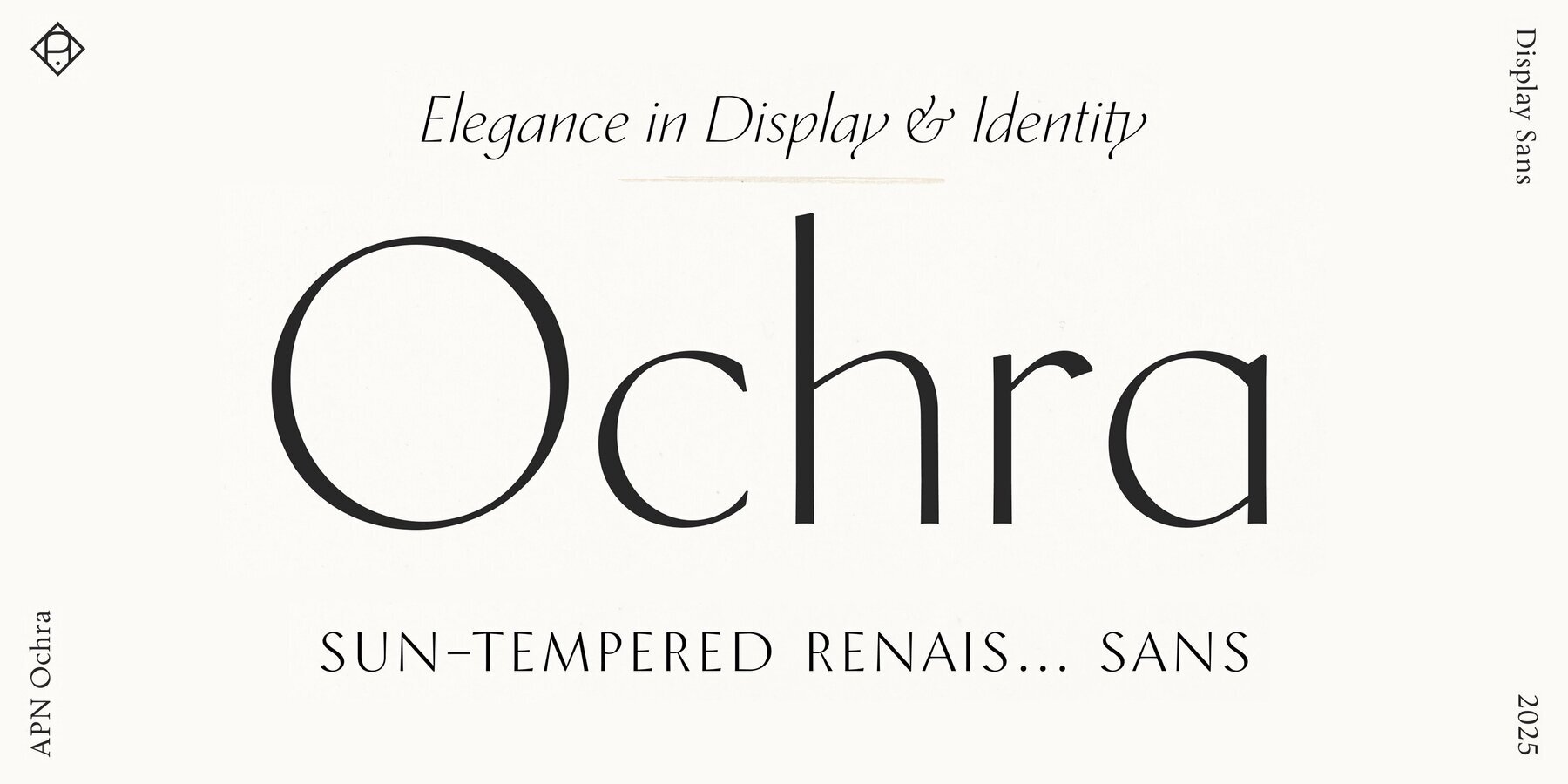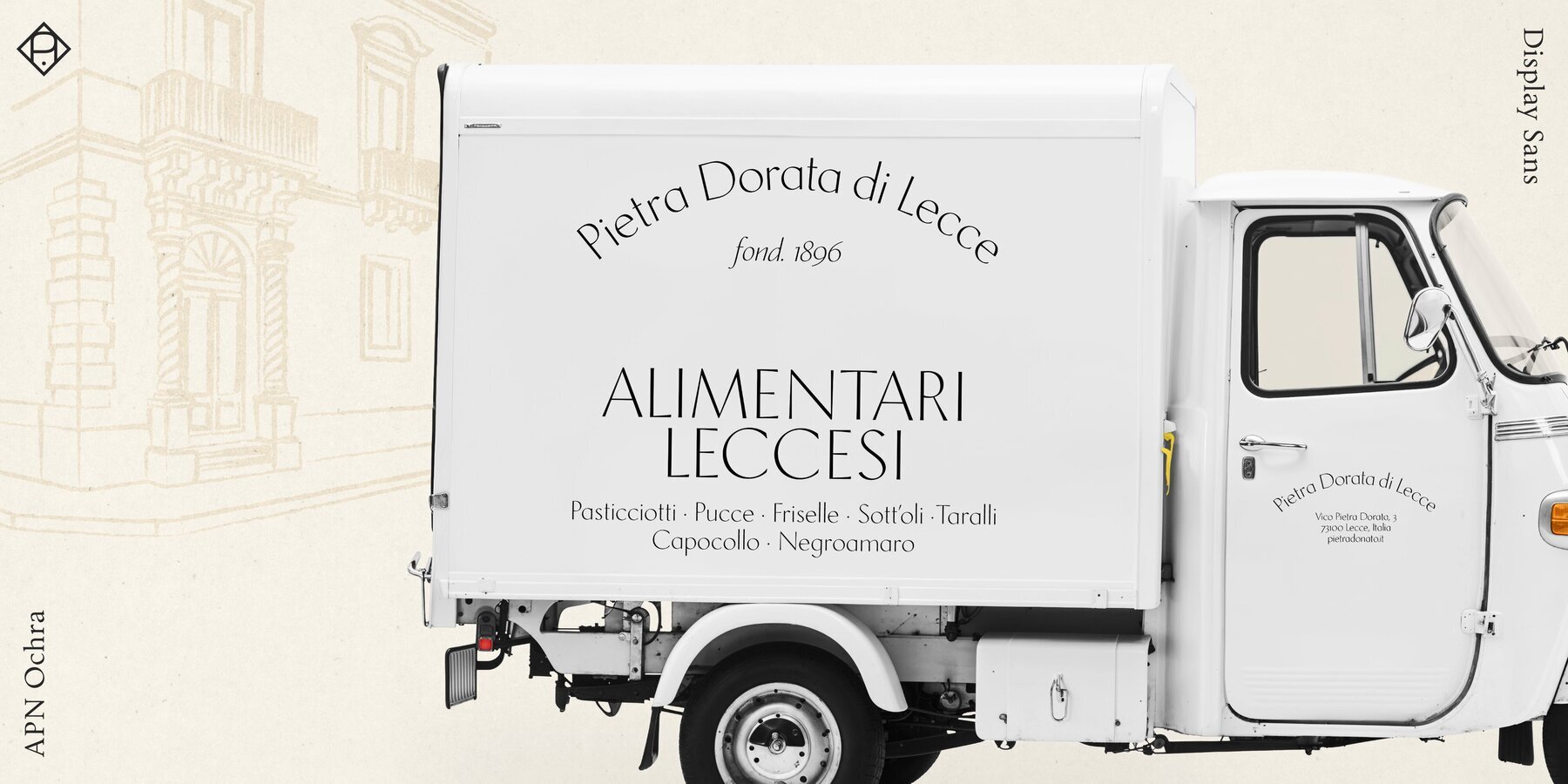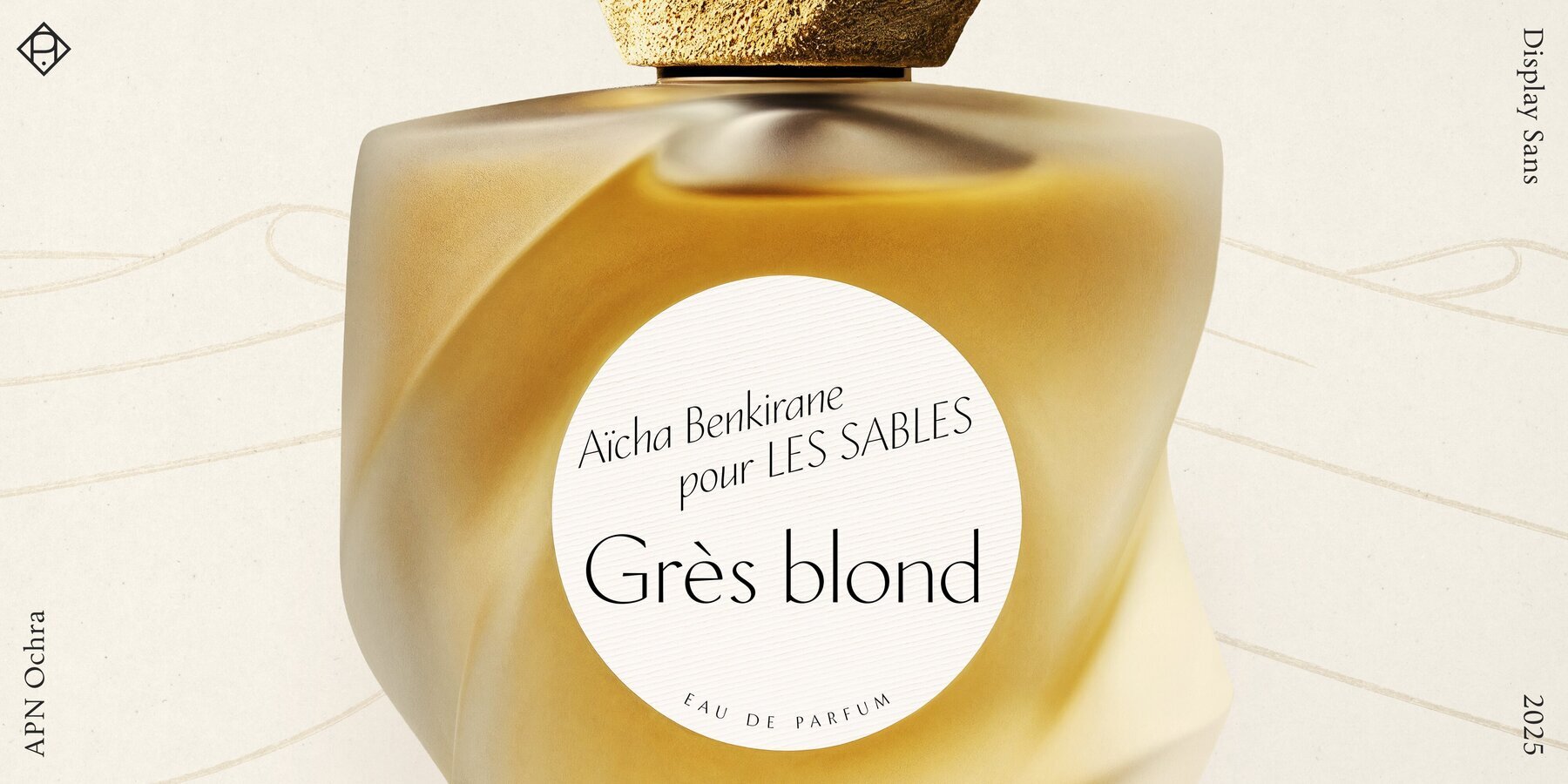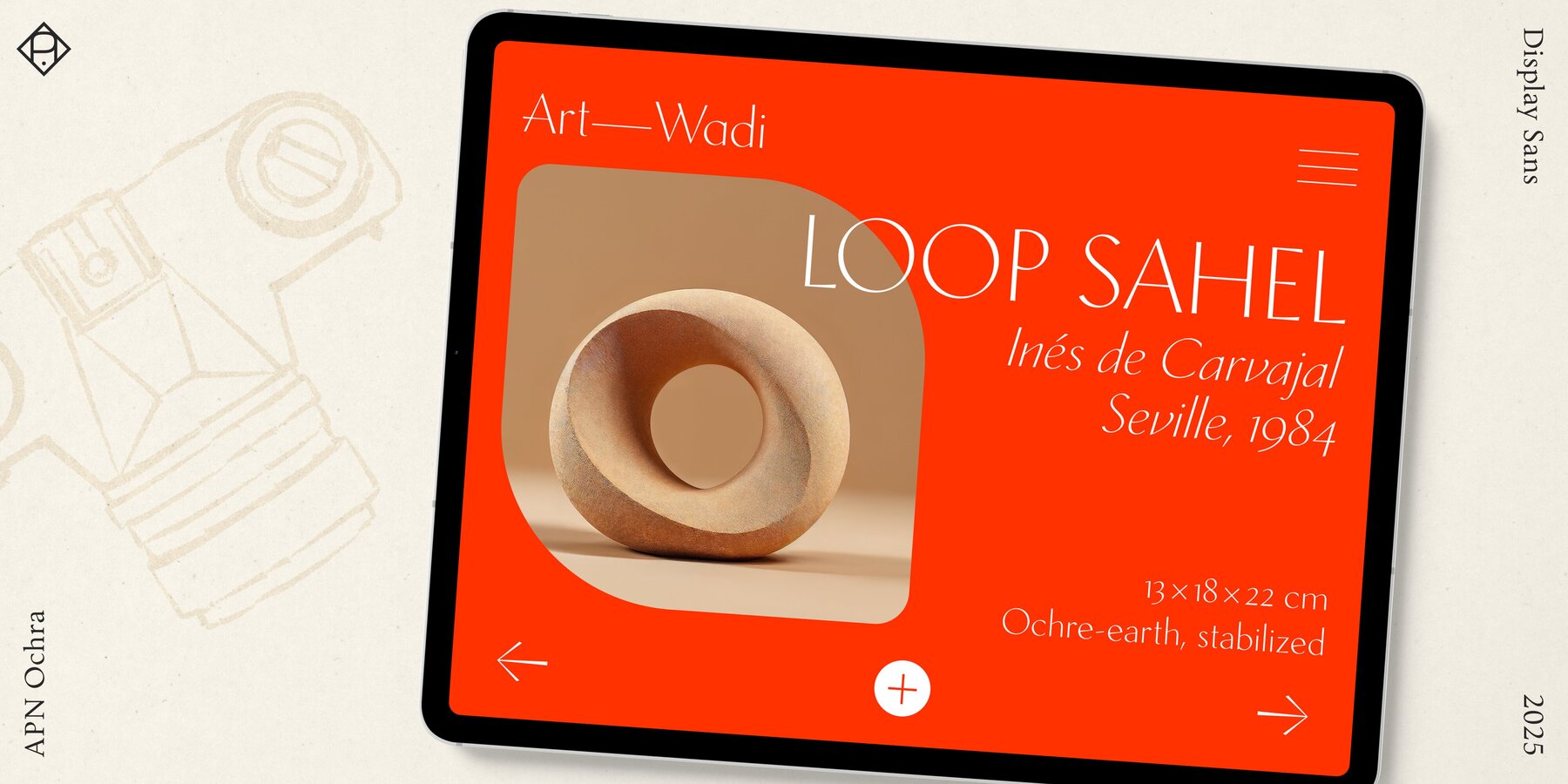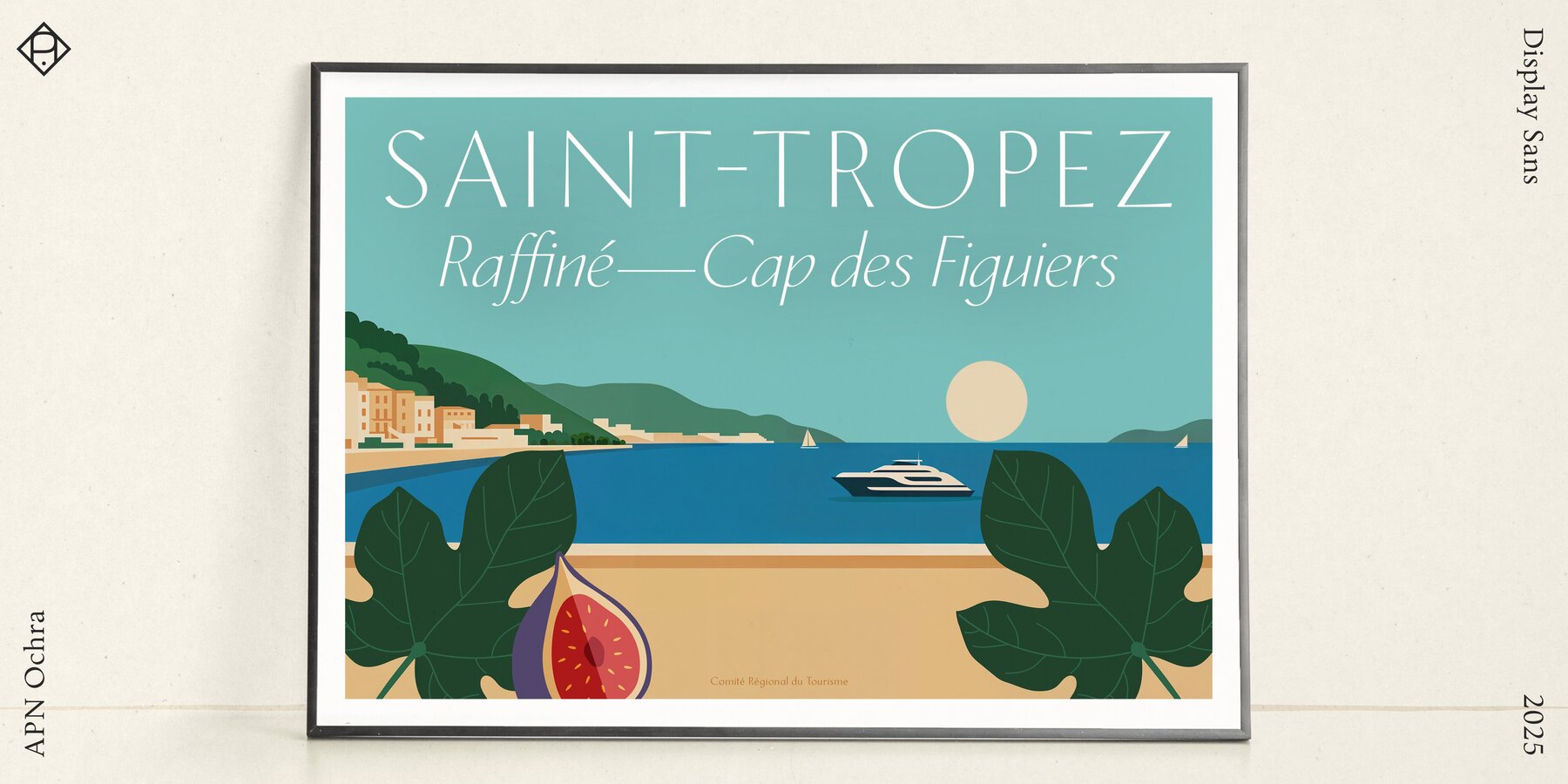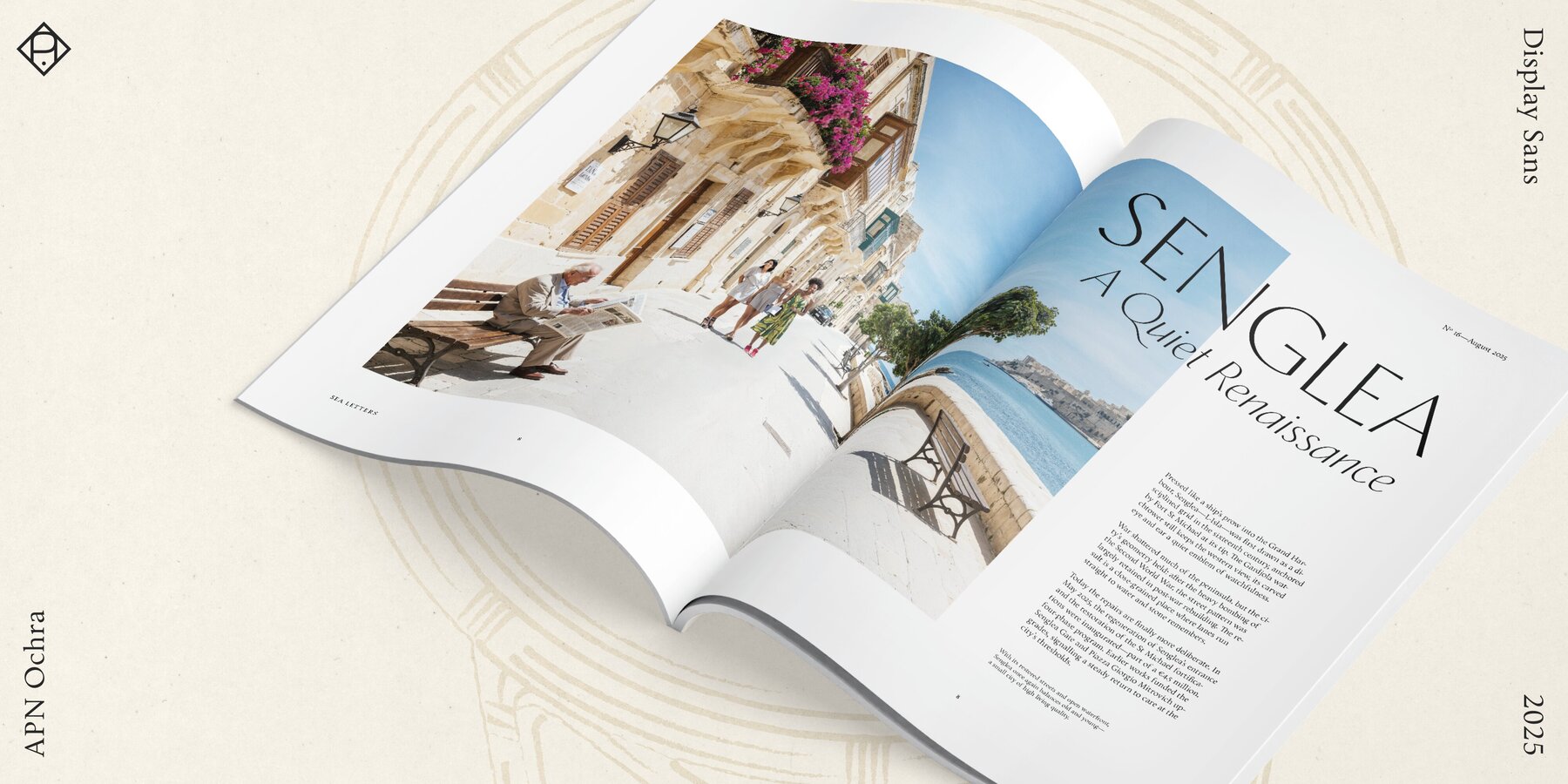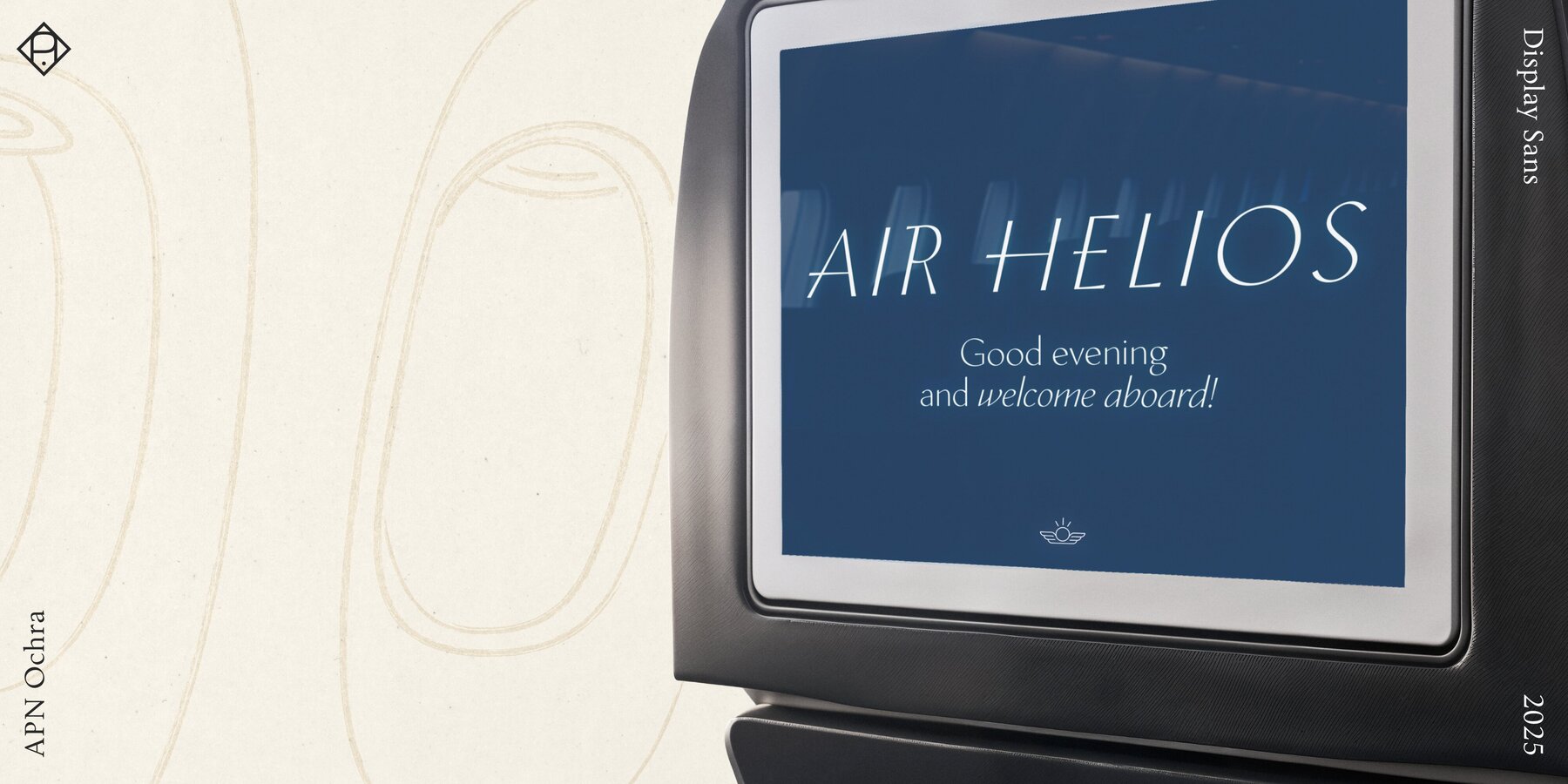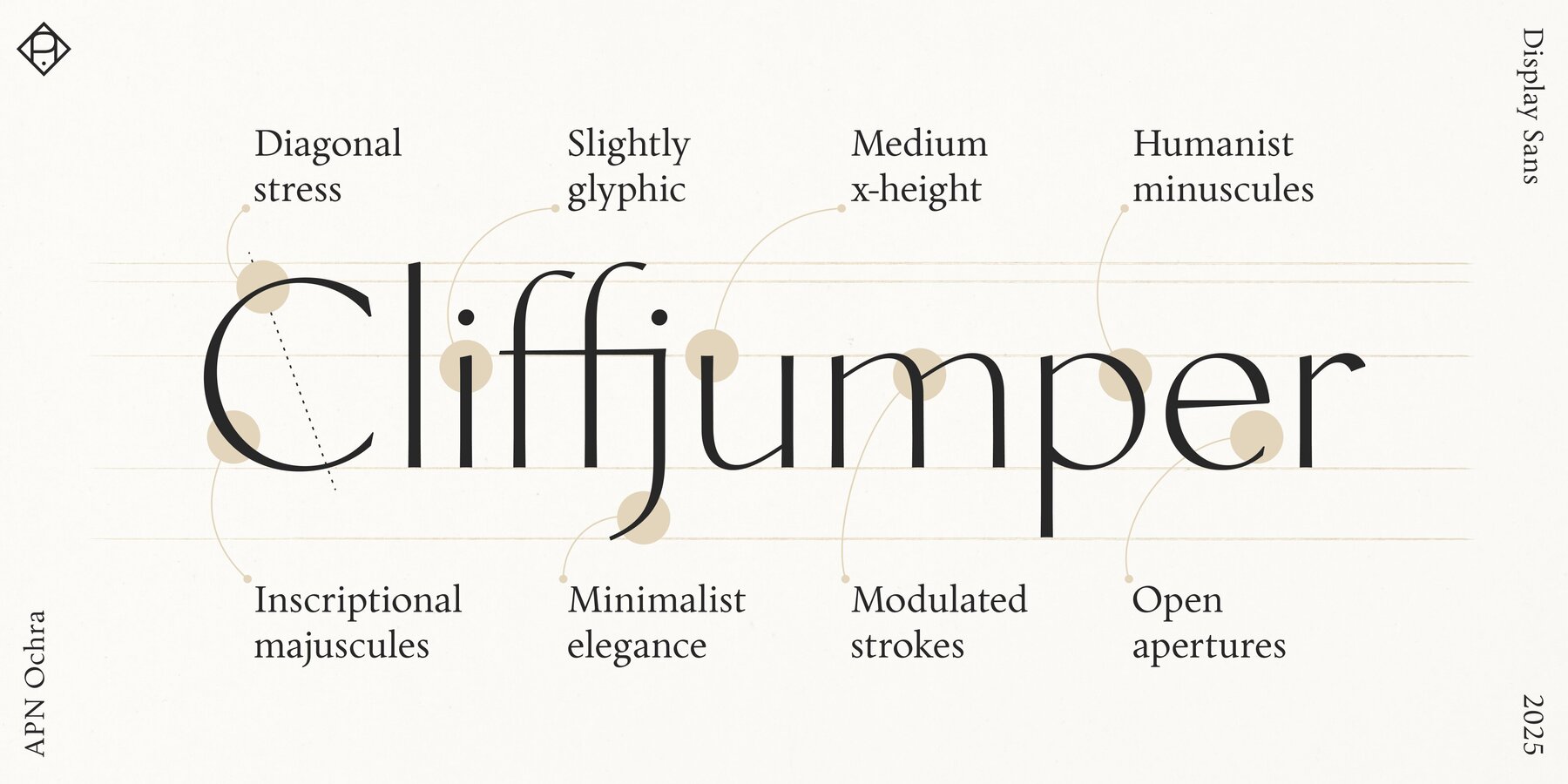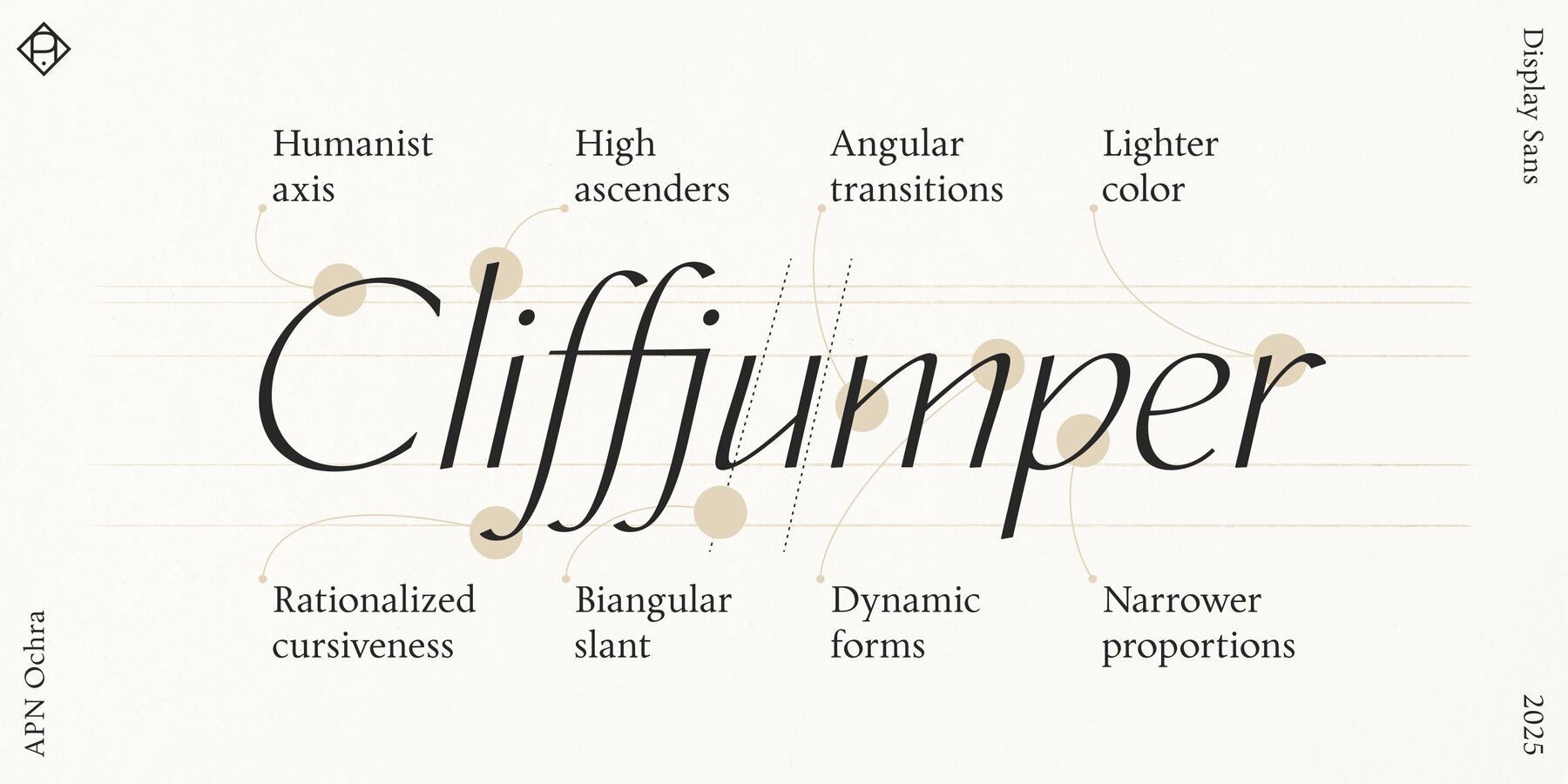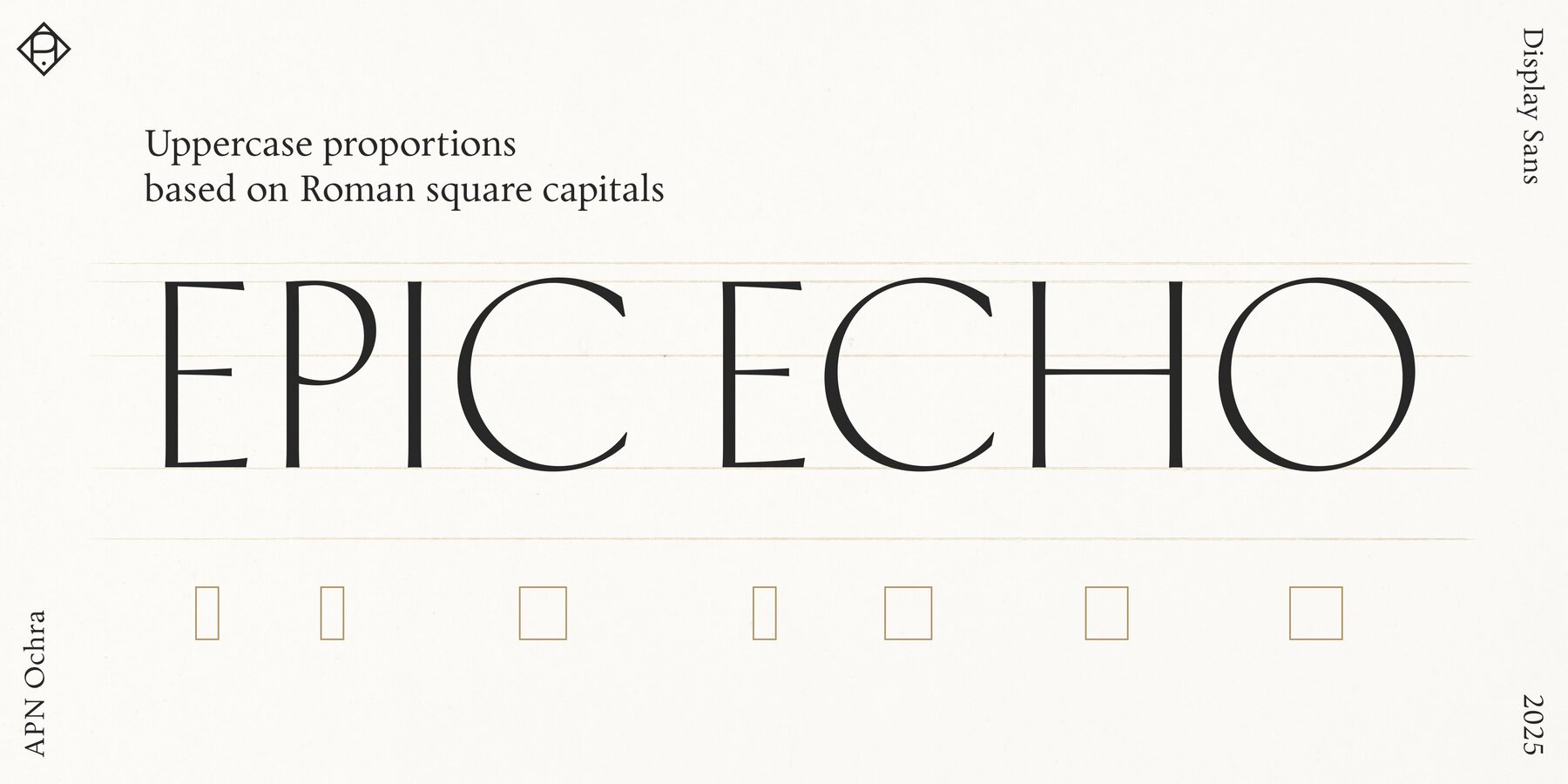
APN Ochra Font
APN Ochra Regular
APN Ochra Italic
Introducing APN Ochra: a slender, sun-baked display and titling companion to APN Chora, with a subtle glyphic touch and a nod to earlier Quattrocento Florentine letterforms, illustrating the cyclical nature of cultural revivals. Modulated rather than monolinear, APN Ochra marries inscriptional traits with the broad-nib logic and pronounced diagonal stress of APN Chora. A lowered x-height permits generous ascenders, while subtle irregularities lend natural elegance. The capitals echo imperial Roman proportions, while the lowercase draws from open, rounded Renaissance forms, and the italic employs a bi-angular slant for gentle dynamism. Though conceived for titling and display, APN Ochra is fully equipped for versatility: it includes lowercase, small caps, multiple figure sets, fractions, stylistic sets and alternates, fine ligatures, case-sensitive forms, mathematical symbols, and more—all with extensive Latin-script language support. APN Ochra’s distinctive, expressive voice brings clarity, contrast, and grace to headlines, logomarks, and identity work, extending the APN Chora family while remaining true to its principles.